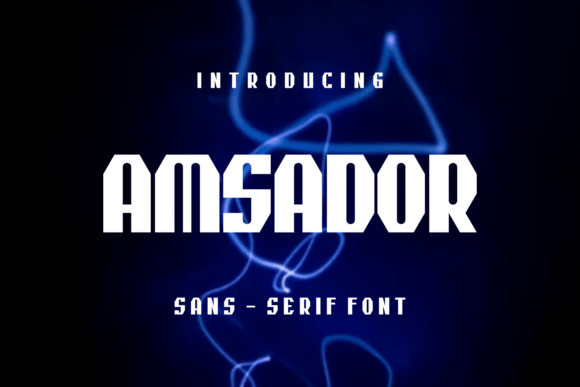
Introduction to Amsador Font
Amsador is a cool and unique sans serif font.
Key Features of Amsador Font
Why Choose Amsador Font?
Amsador Font offers exceptional quality and versatility, making it a valuable addition to your design toolkit. Whether you’re creating for personal projects or commercial use, Amsador Font delivers professional results.